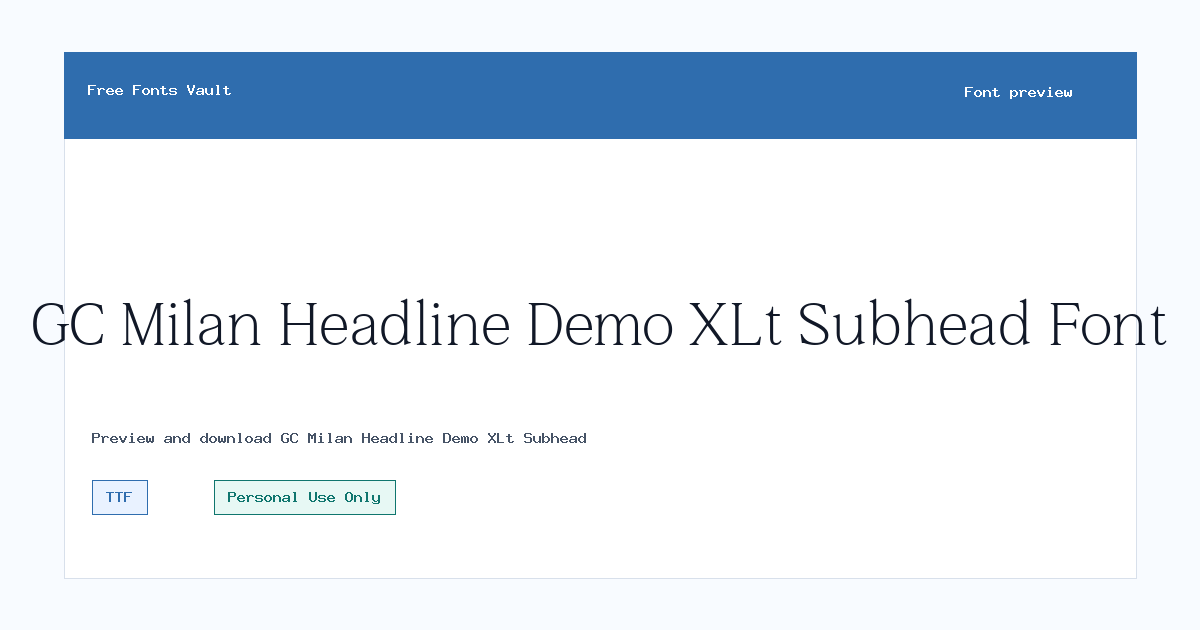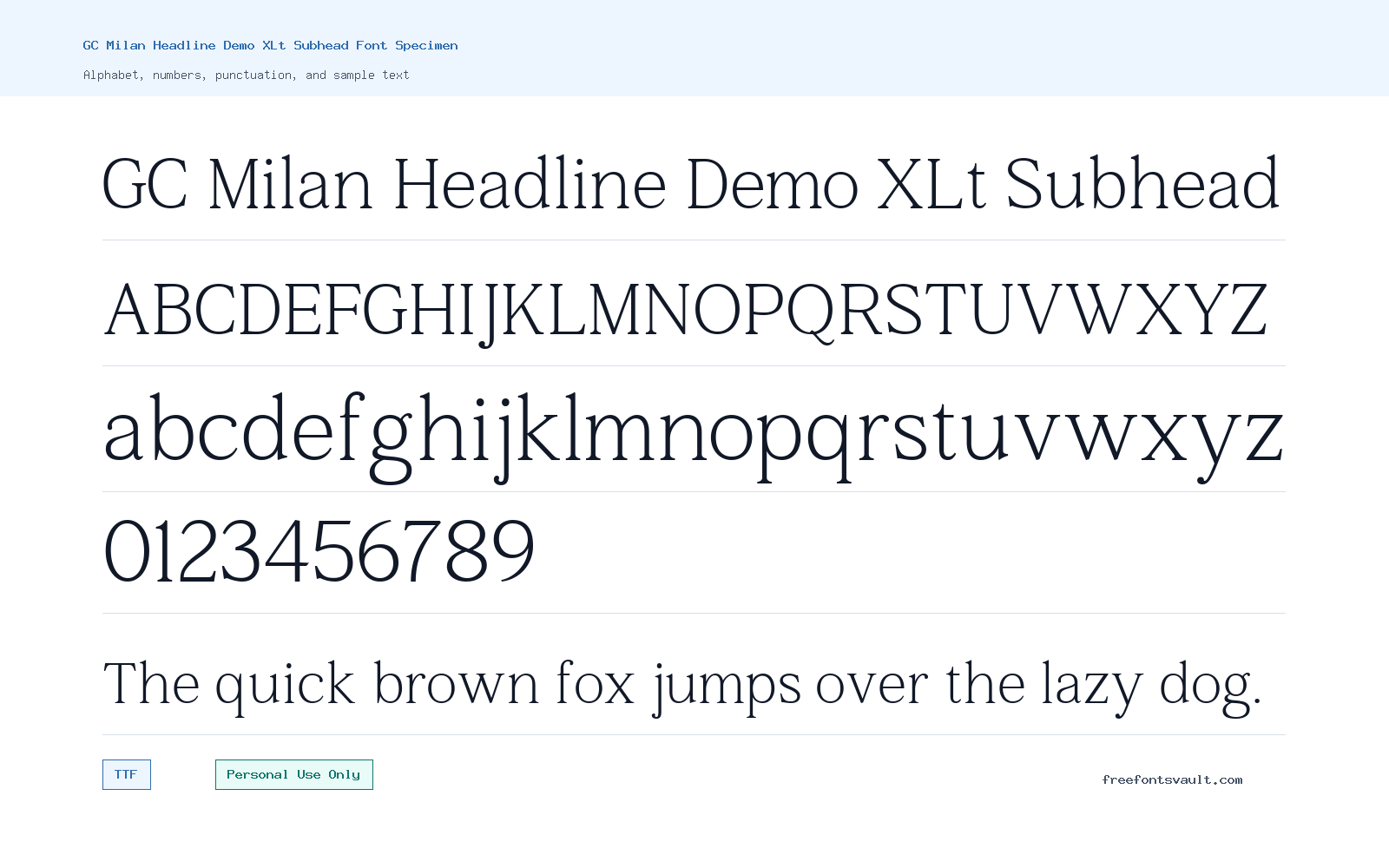
GC Milan Headline Demo XLt Subhead
- Designer Zainaldi Ibrahim of Glyphonic
GC Milan Headline Demo XLt Subhead is a light headline serif font made for elegant display text, especially when you want a softer, more spacious subhead style.
About GC Milan Headline Demo XLt Subhead
GC Milan Headline Demo XLt Subhead has a refined serif look with a very light visual weight. The “XLt Subhead” name points to an extra-light subhead cut, so it is best treated as a display font rather than a workhorse text face. Use it where the letters have enough room to breathe: fashion-style headings, editorial titles, invitation mockups, portfolio headers, quote graphics, and clean brand concept layouts.
Because this is a light demo font, test it carefully before using it in a finished design. Thin strokes can look graceful at larger sizes, but they may lose contrast on small screens, low-resolution images, or busy backgrounds. In the preview box, try short words, mixed case, and punctuation to see how the spacing feels. For longer reading, pair it with a simple sans serif or a sturdier serif that can carry body text while GC Milan Headline Demo XLt Subhead handles the headline or subheading.
- Extra-light serif style suited to headlines, subheads, and short display text
- Editorial subheads, magazine-style title layouts, and refined web hero text
- Invitations, quote cards, portfolio covers, fashion graphics, and personal design mockups
GC Milan Headline Demo XLt Subhead is credited to Zainaldi Ibrahim of Glyphonic.
For best results, use this font at larger sizes with generous spacing and strong contrast against the background. Avoid using it for small paragraphs, dense UI labels, or low-contrast text, because the extra-light strokes may become hard to read.
What kind of font is GC Milan Headline Demo XLt Subhead?
It is a light serif headline font intended for display settings such as titles, subheads, covers, and short decorative text.
Can I use this font for body text?
It is not the best choice for long paragraphs. The extra-light style works better in larger, shorter text where the thin details remain clear.
How should I pair GC Milan Headline Demo XLt Subhead?
Pair it with a clean sans serif or a more readable serif for body copy. Let this font handle the elegant headline or subhead while the companion font does the heavier reading work.